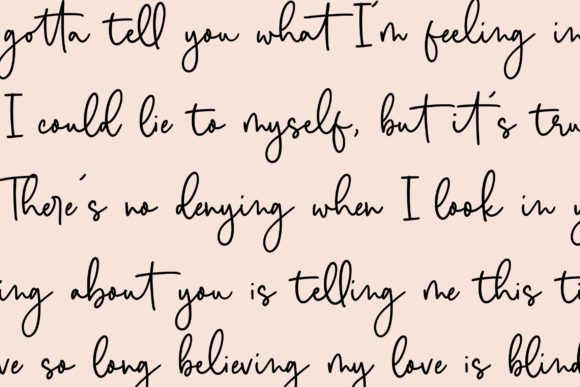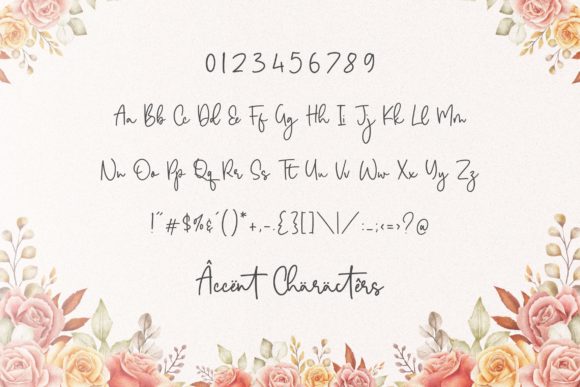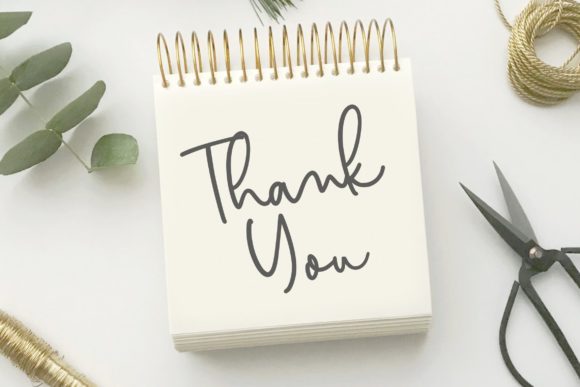
Introduction to Melwisa Jameson Font Font
Fonts play a crucial role in design, and the Melwisa Jameson Font font is a typeface that brings both character and versatility to any project. Whether you’re working on a branding project, a website, or a print design, the Melwisa Jameson Font font offers a unique style that can elevate your work.
Melwisa Jameson is a flowing handwritten font, described by an elegant touch, perfect for your favorite projects.
Fall in love with its incredibly distinct and timeless style and use it to create spectacular designs This font is PUA encoded which means you can access all of the glyphs and swashes with ease.
Key Features of Melwisa Jameson Font Font
Why Choose Melwisa Jameson Font Font?
The Melwisa Jameson Font font is more than just a typeface – it’s a design tool that helps you communicate your message with style and clarity. Its unique character set and versatile design make it suitable for a wide range of applications, from elegant invitations to bold headlines.
With its carefully crafted letterforms and balanced proportions, the Melwisa Jameson Font font ensures readability and visual appeal across all mediums.
What makes Melwisa Jameson Font font special?
The Melwisa Jameson Font font stands out with its unique design, exceptional readability, and versatility across various design applications.